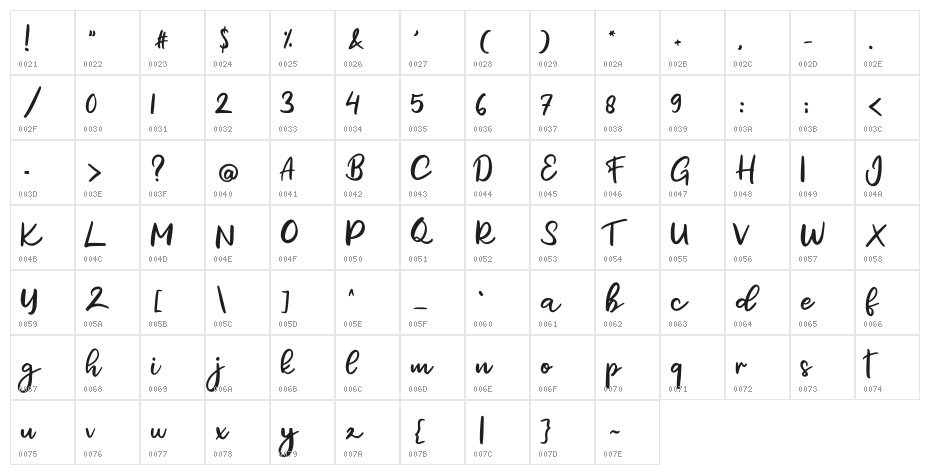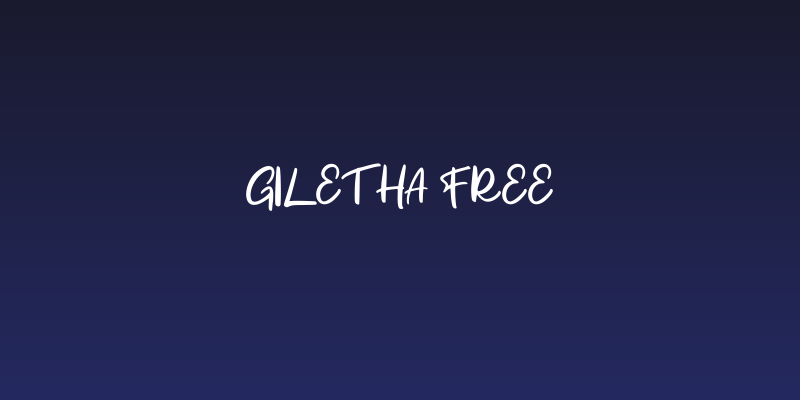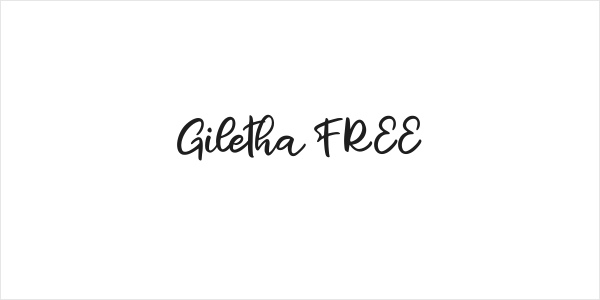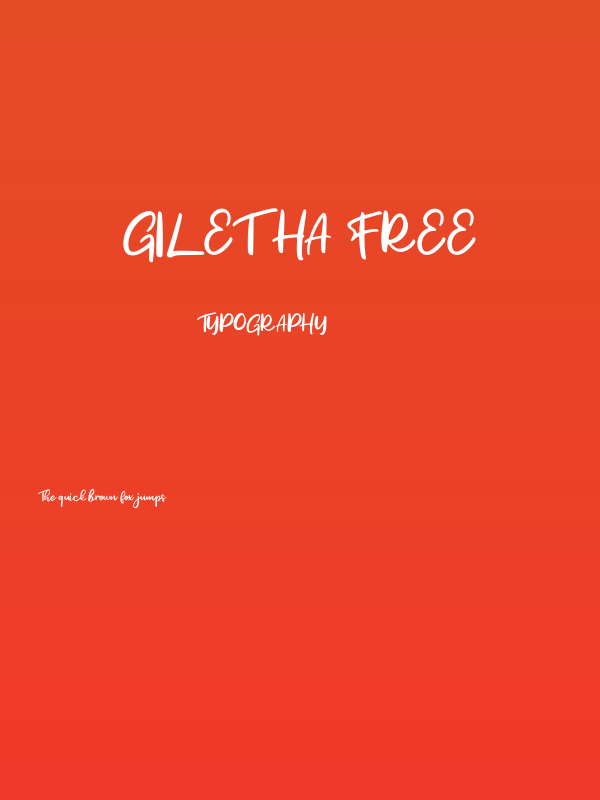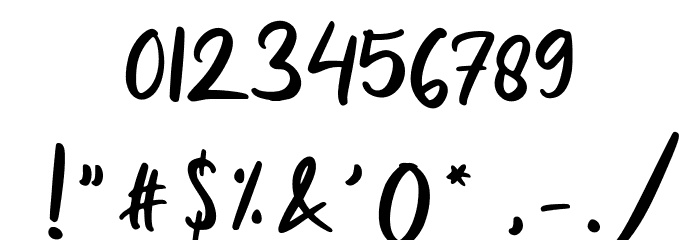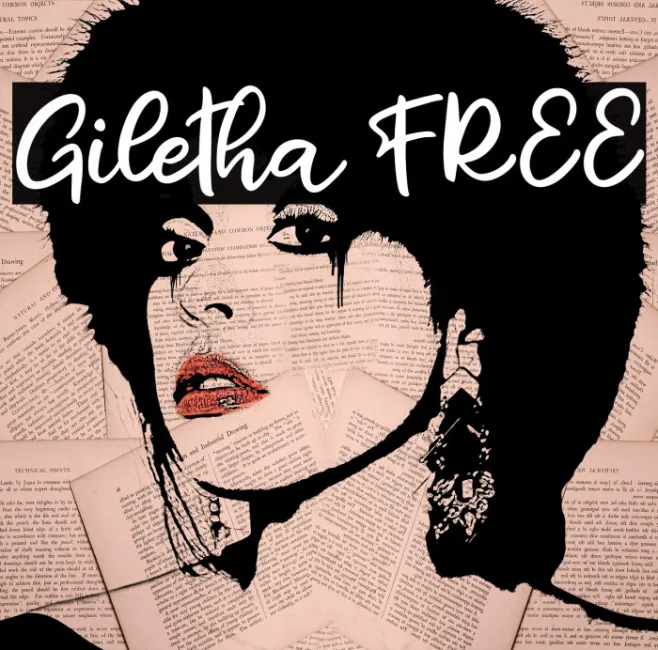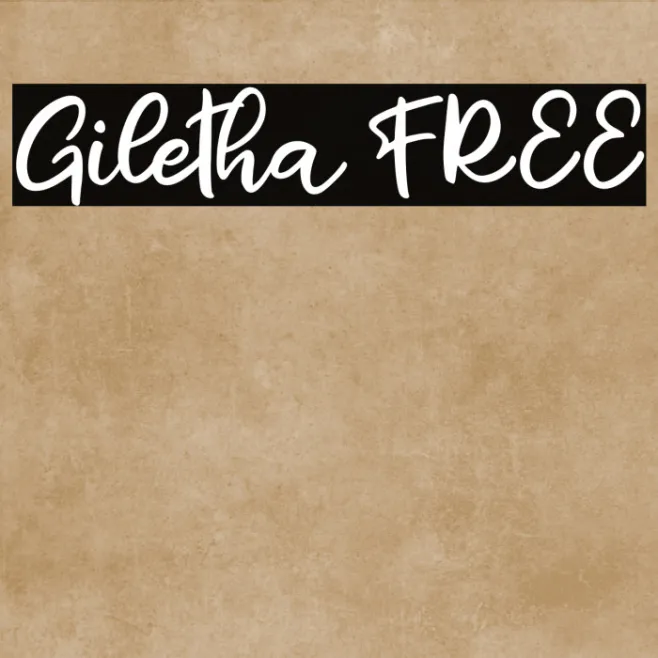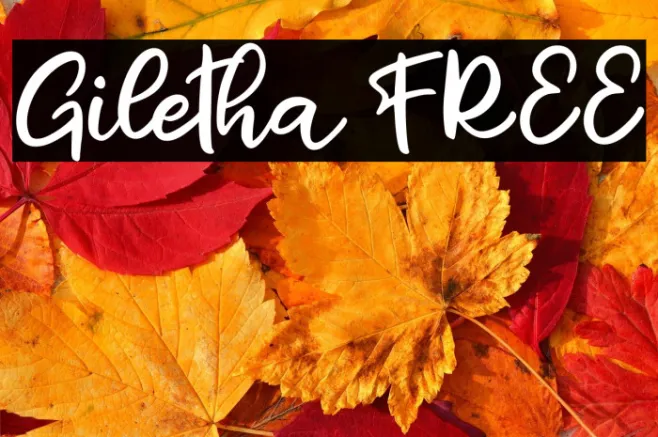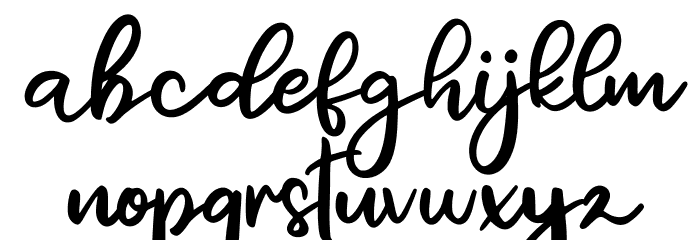
Giletha FREE Font
Giletha FREE Description
This font features a playful and energetic handwritten style, characterized by its fluid and dynamic strokes. The letters are bold and slightly slanted, giving a sense of motion and liveliness. The uppercase and lowercase letters maintain a consistent style, with rounded edges and a casual, friendly appearance. The numbers and special characters complement the alphabet with the same handwritten charm. This font is ideal for projects that require a personal touch or a creative flair, such as invitations, greeting cards, or branding materials.